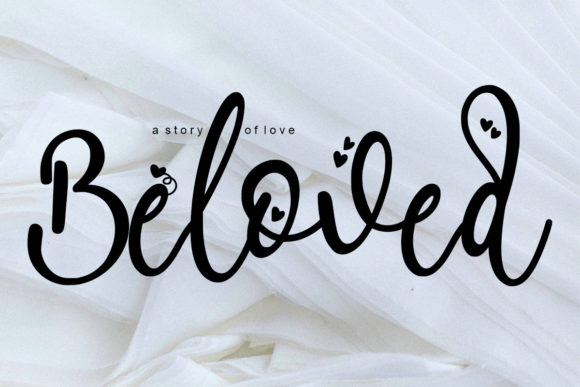
The Quest for the Perfect Font: How Beloved Stole My Heart
Ah, the eternal struggle of finding the perfect font for a design project. I recall working on a branding project for a boutique client, spending hours scrolling through font libraries, and yet, nothing seemed quite right. That was until I stumbled upon Beloved, a delicate and fashionable script font that has since become a staple in my design toolkit.
An Honest Review of Beloved Font
What I Love About Beloved ✨
- 💫 Delicate and elegant strokes that add a touch of sophistication to any design
- 🎨 Highly versatile and adaptable to various contexts, from logos to t-shirt printing
- 🔍 PUA encoded for easy access to glyphs and swashes
- 👍 Perfect for creative products, such as stationery, planners, and more
While Beloved is an exceptional font, there are a few minor limitations to consider:
- 🤔 Limited availability of bold or heavy weights, which may not be suitable for designs requiring a stronger font presence
- ⚠️ Some users may find the font’s delicacy challenging to read in smaller sizes or at low resolutions
The Designer Inspiration Behind Beloved
Beloved was crafted with the intention of creating a font that embodies elegance, sophistication, and playfulness. The designer’s inspiration was drawn from the world of fashion and luxury, aiming to create a font that would be perfect for branding projects that require a touch of high-end style.
PUA (Private Use Area) encoding allows font users to access a wide range of glyphs and swashes, making it easier to create unique and customized designs.